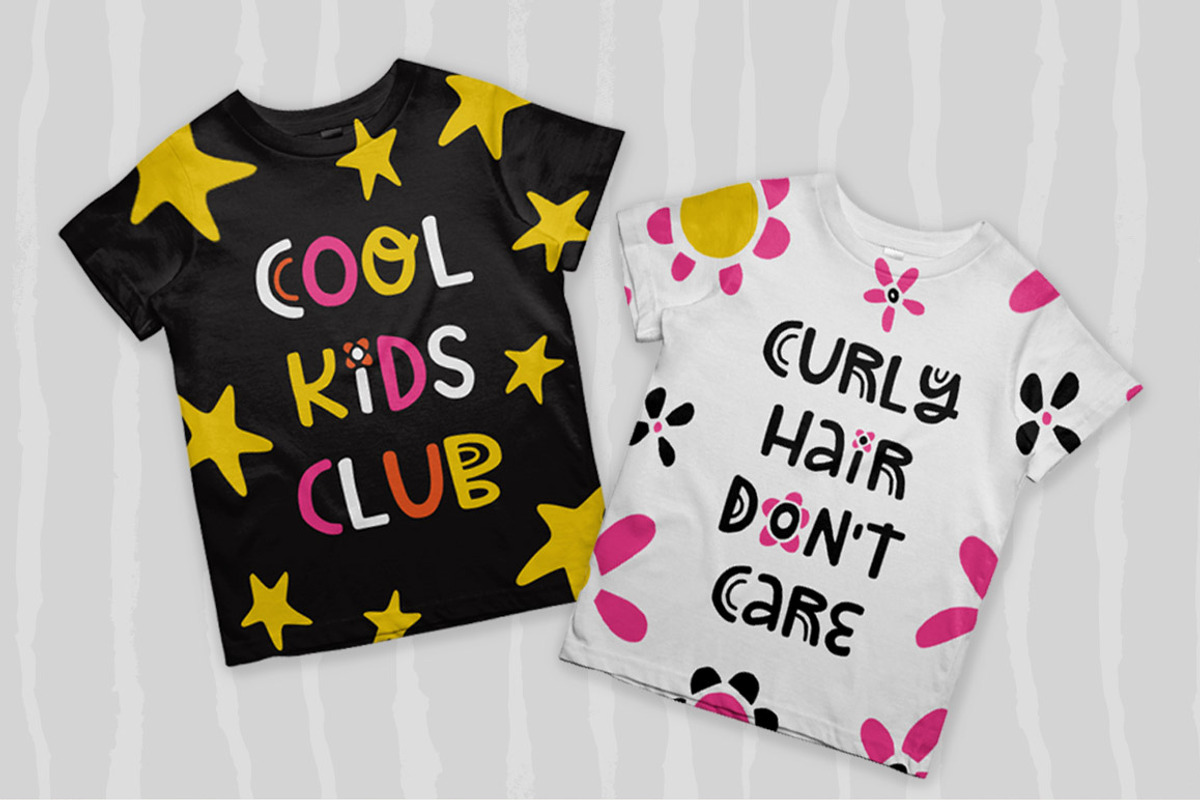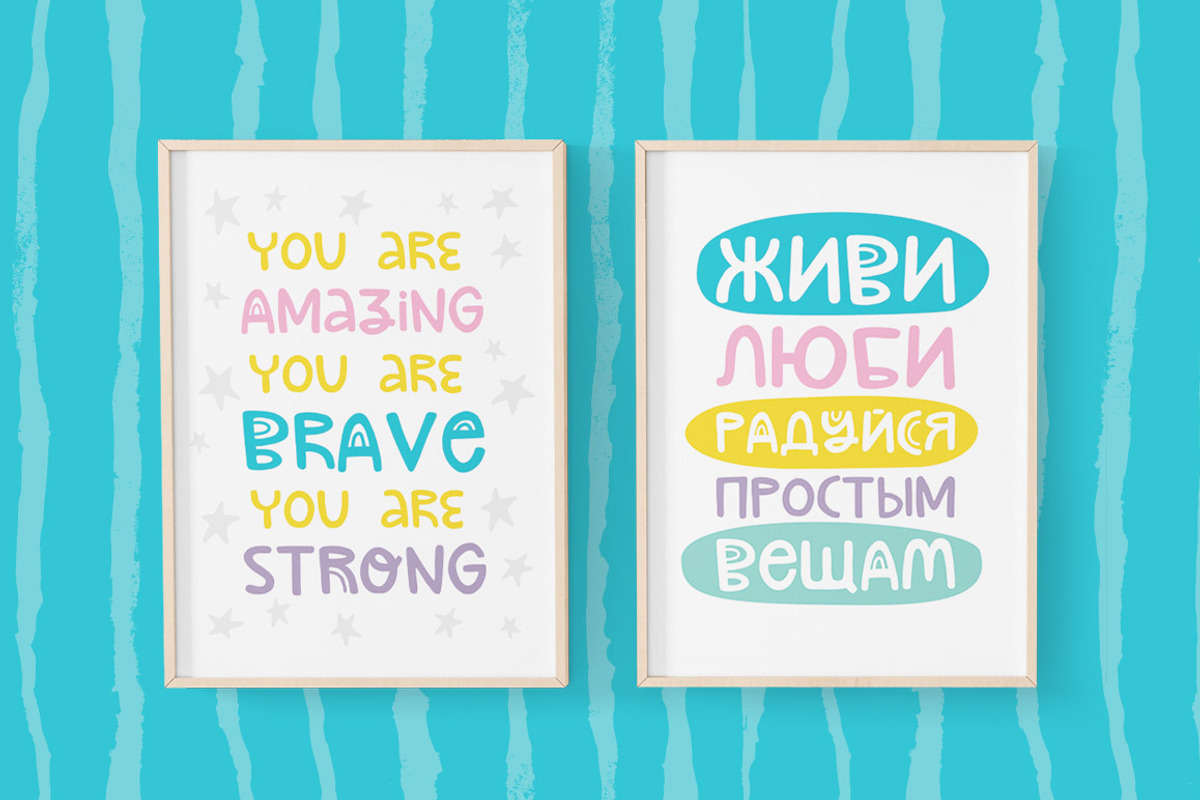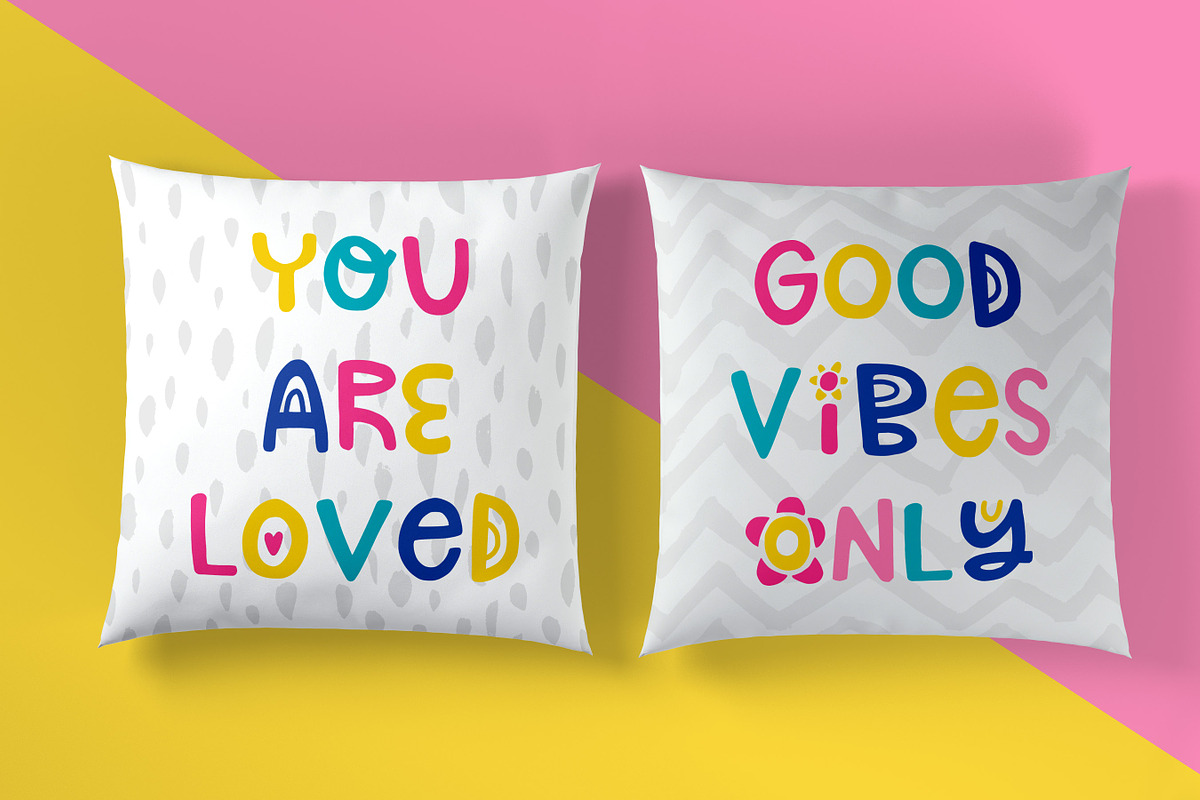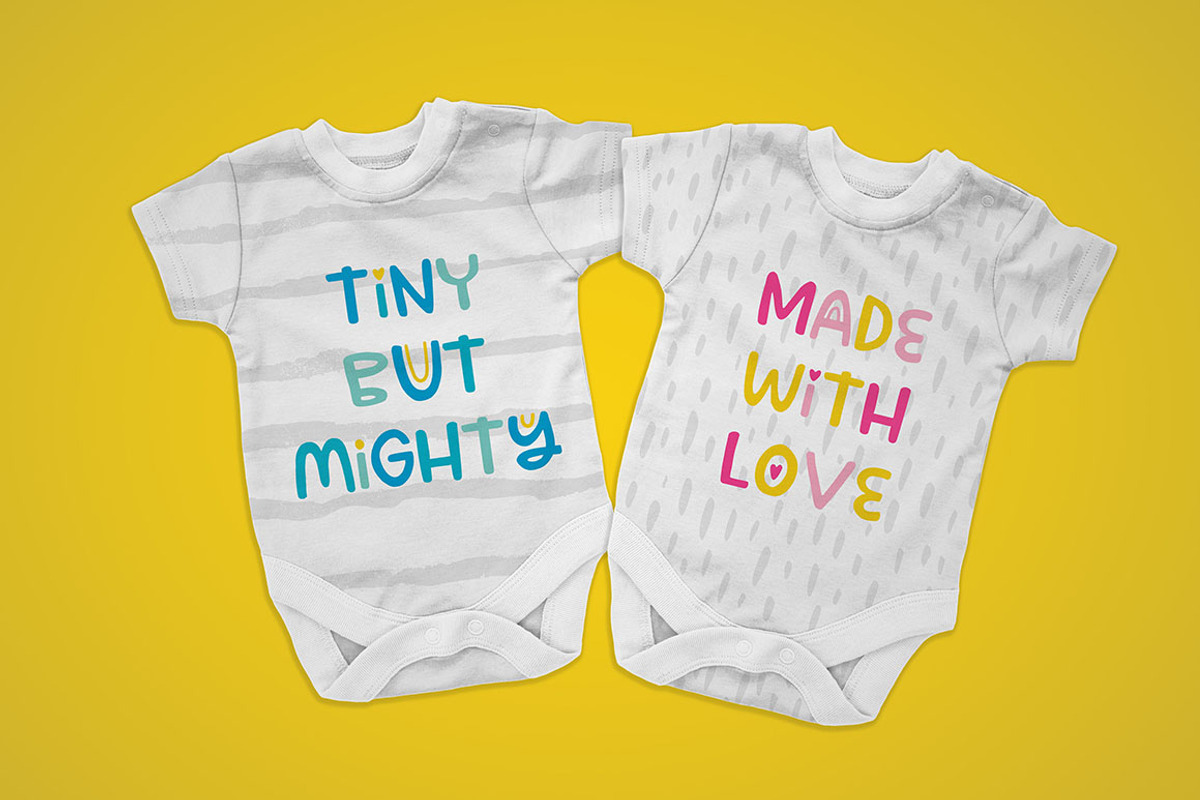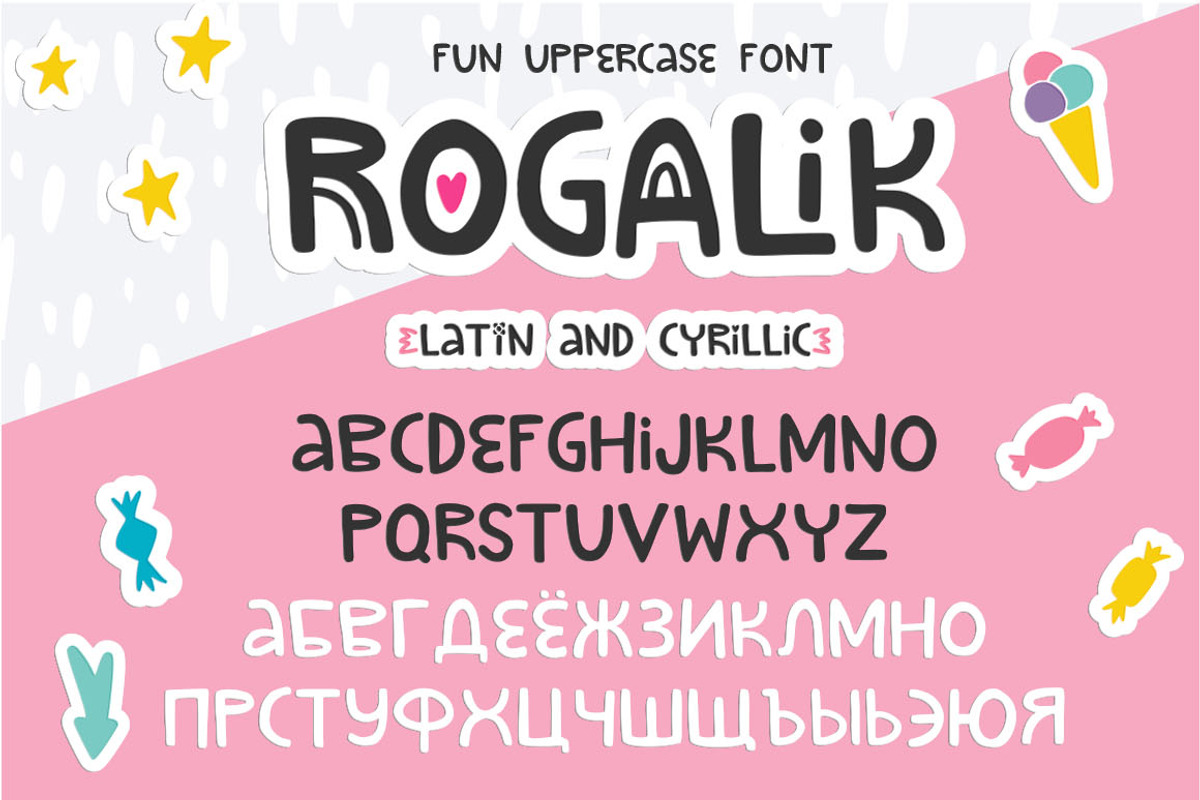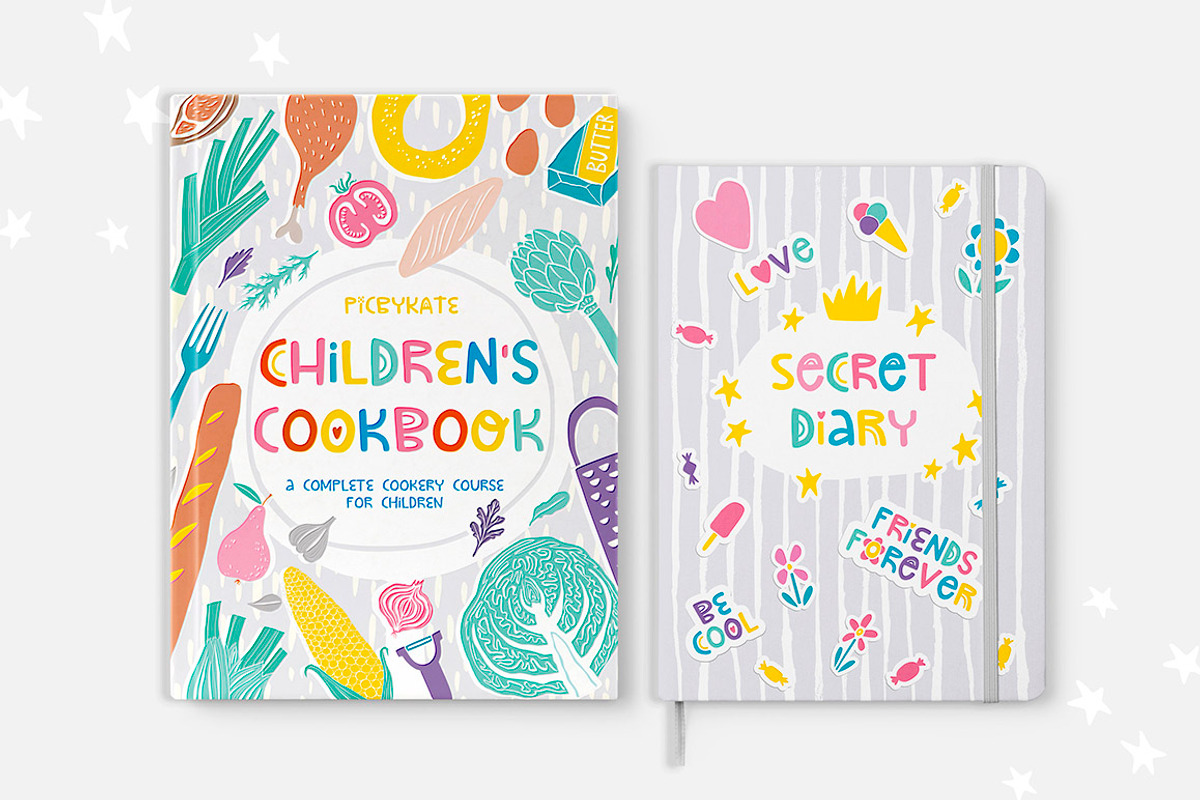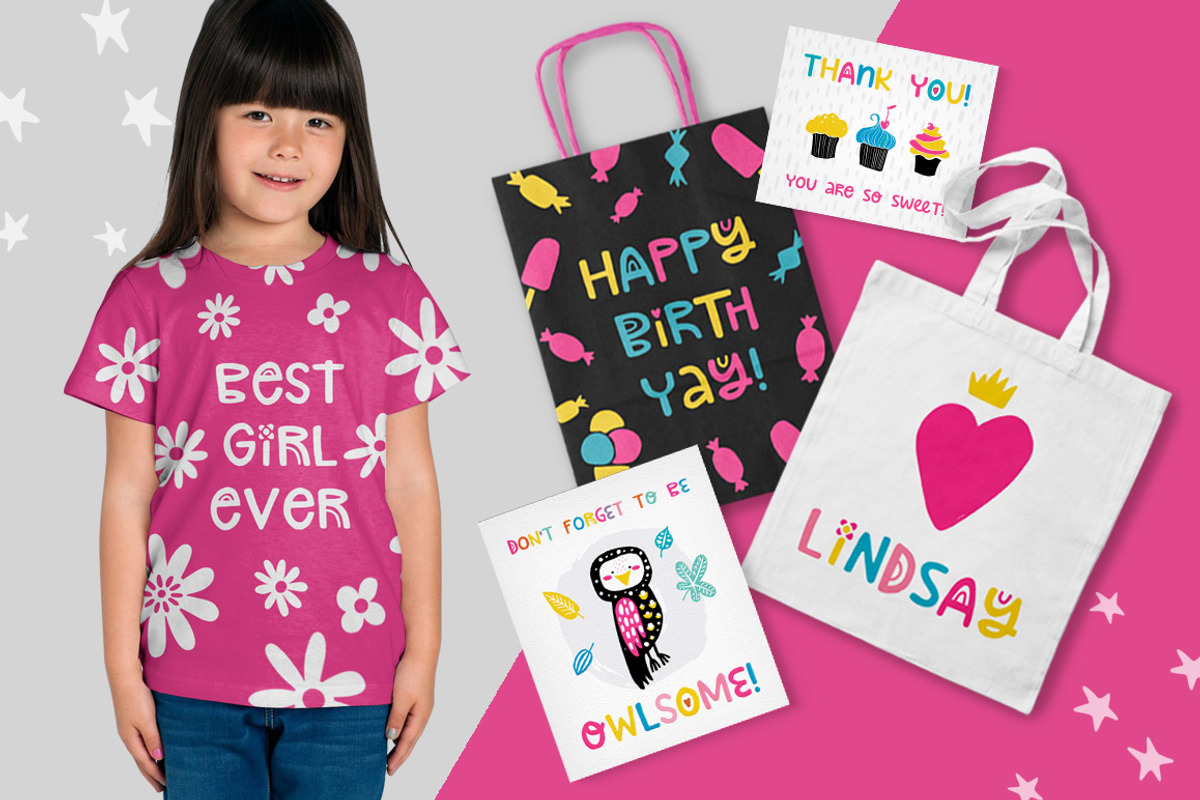
Rogalik Hand Lettered Font
Happy to introduce Rogalik - a fun and playful hand-lettered uppercase font with latin and cyrillic letters! "Rogaliki" is the name of my favourite cookies that my mom baked in my childhood:) So this font could be perfect for children's apparel, cute greeting cards, nursery posters, stickers and other projects with naive and happy mood.
Rogalik font contains latin and cyrillic letter sets, additional characters for language support. Full set of alternate letters with several variations for letters O, I, N, E, Y plus set of symbols and shapes, so with this font you can get unique design in minutes. Get inspired - take a look at the previews with ideas of how you can use this font and all of the font's features.